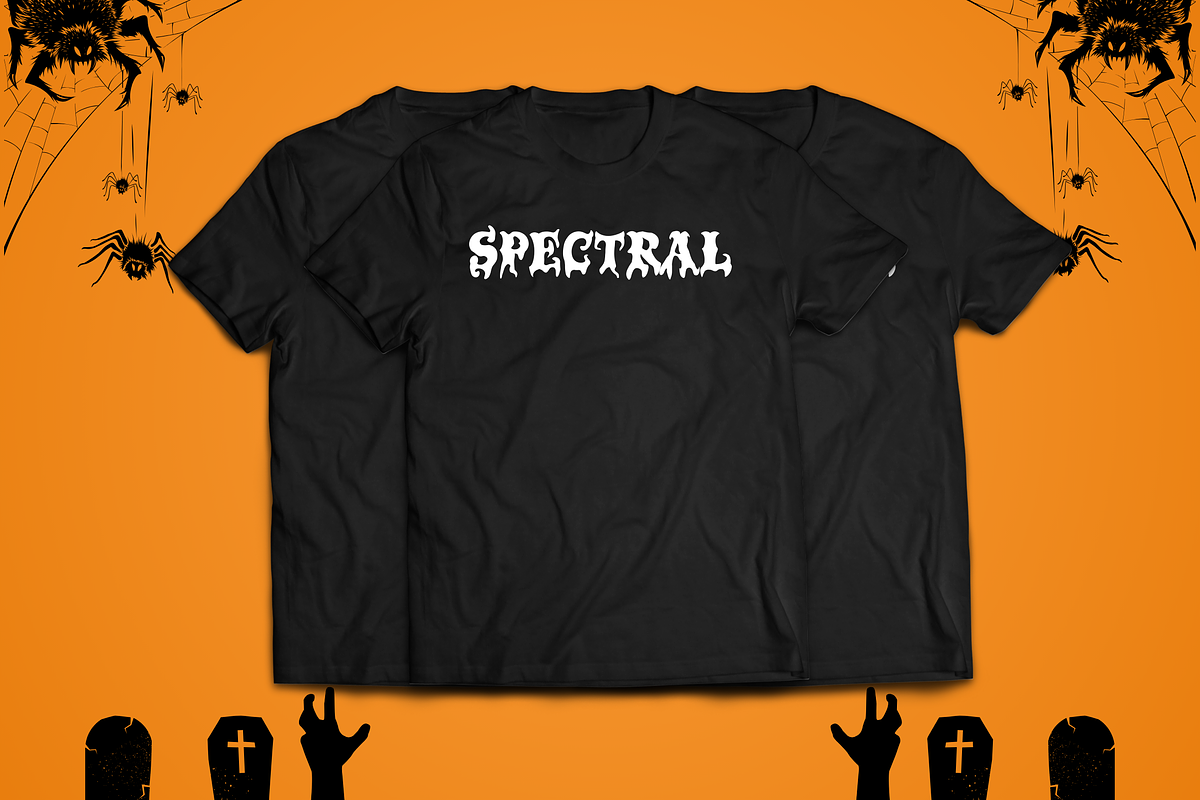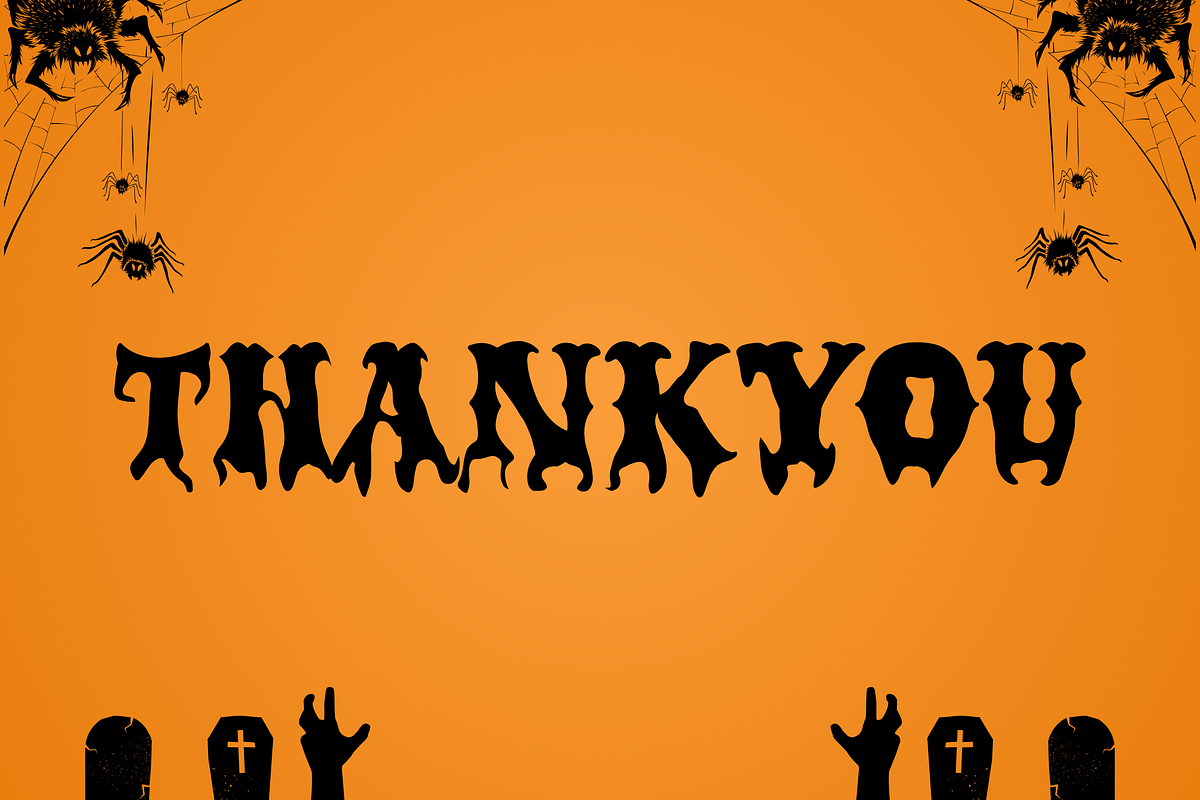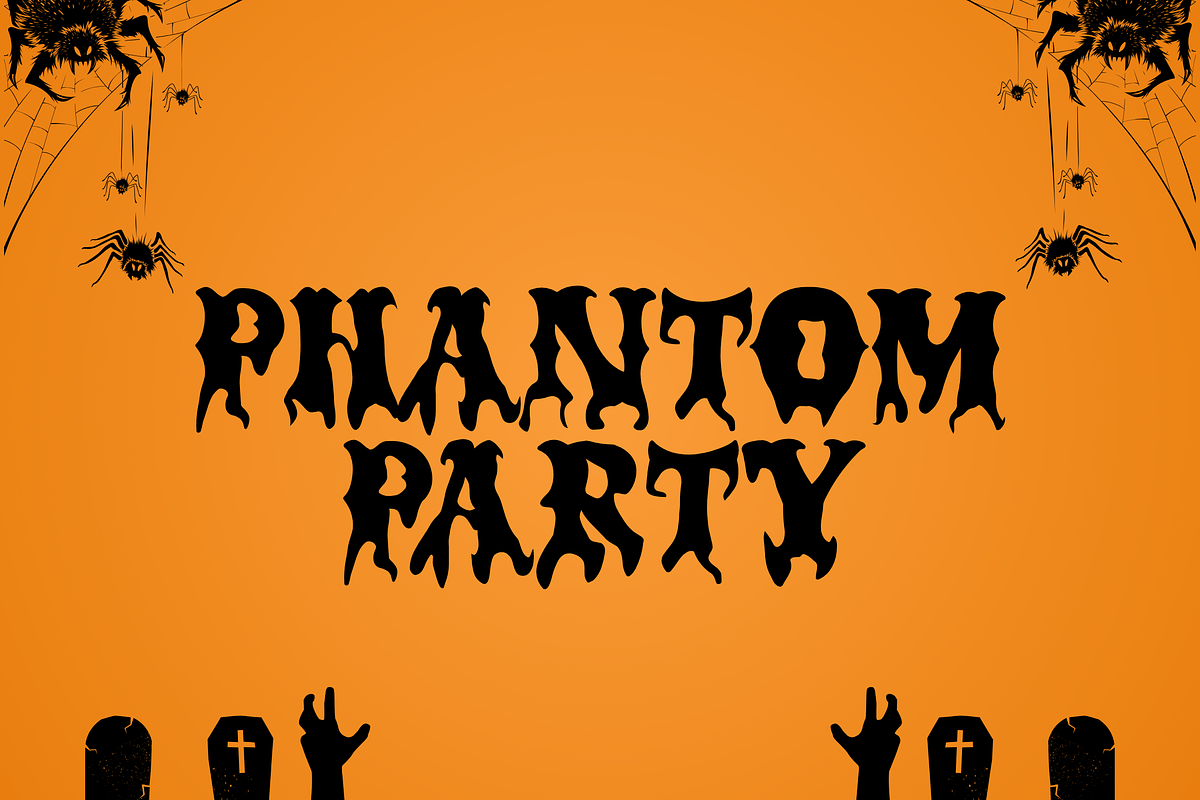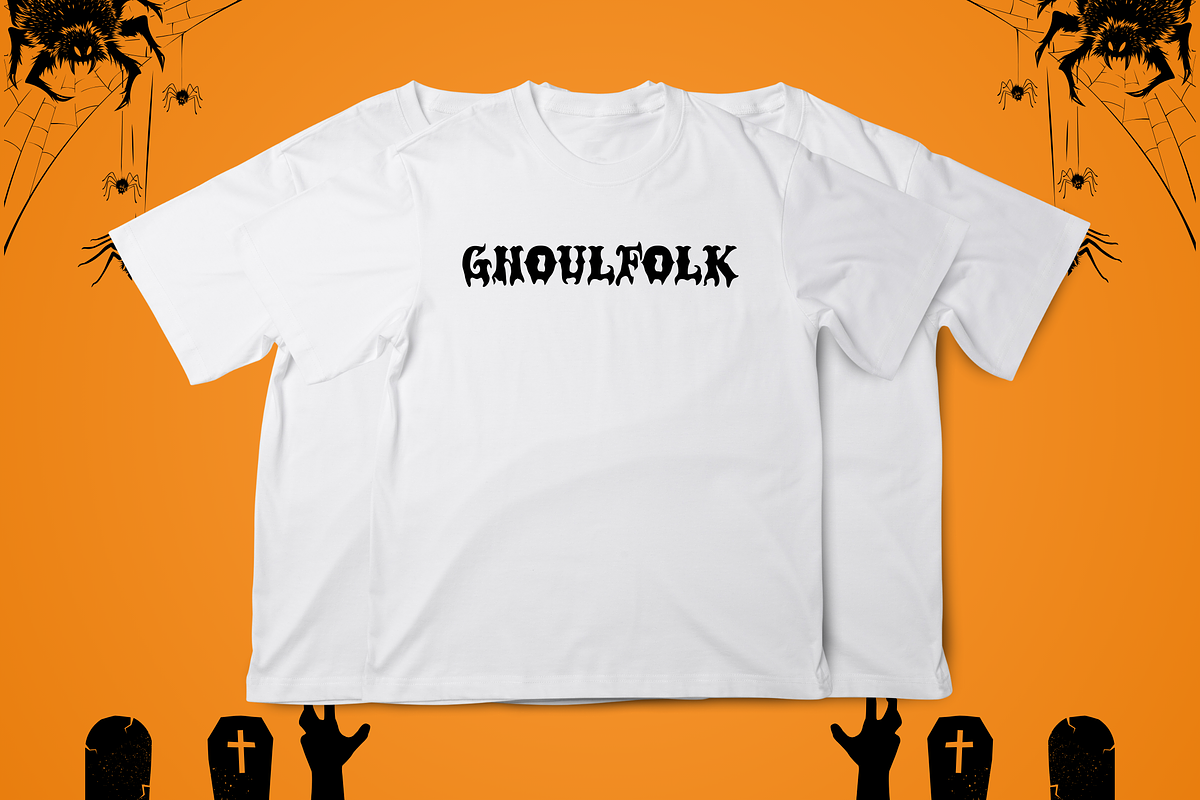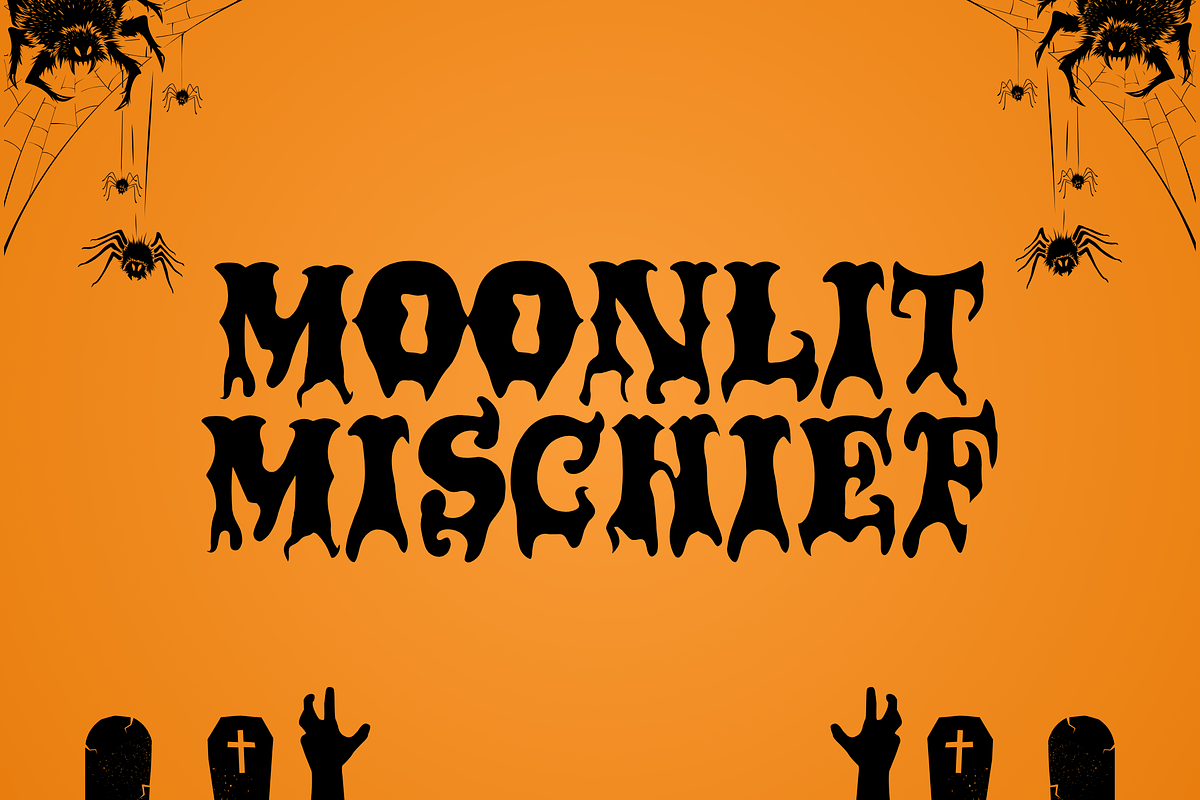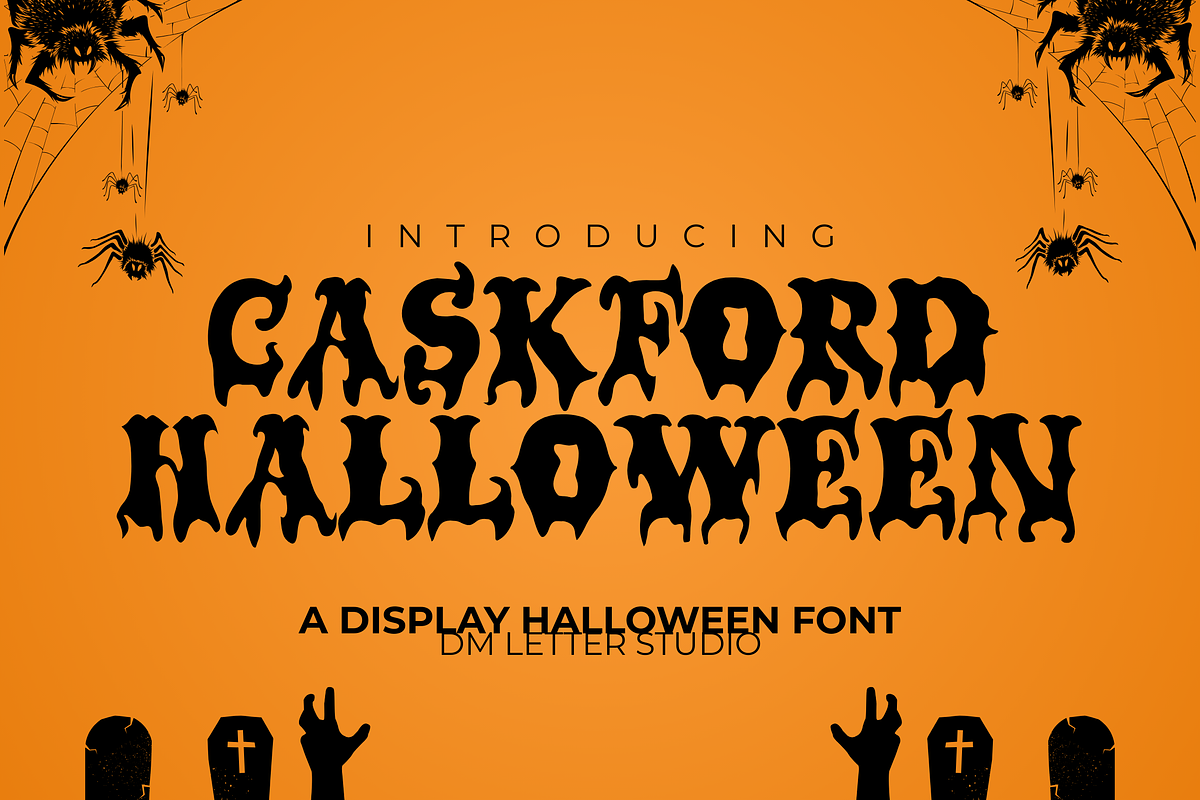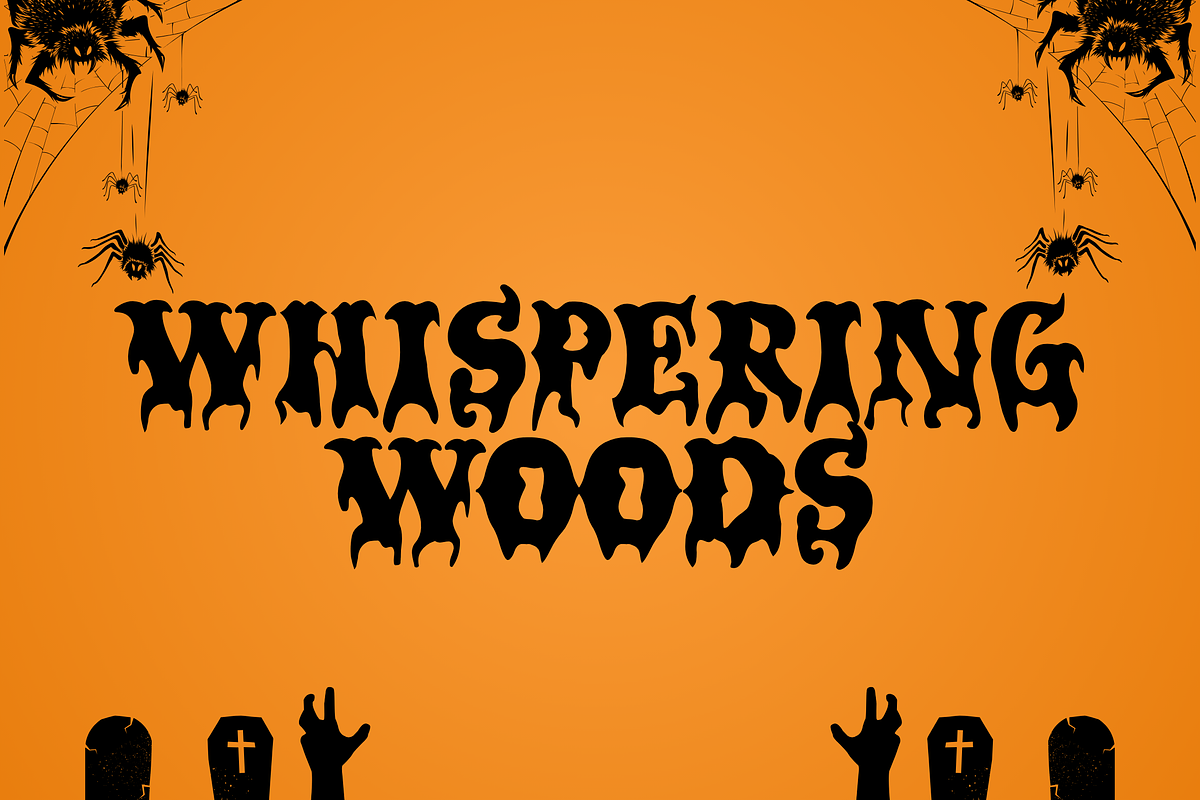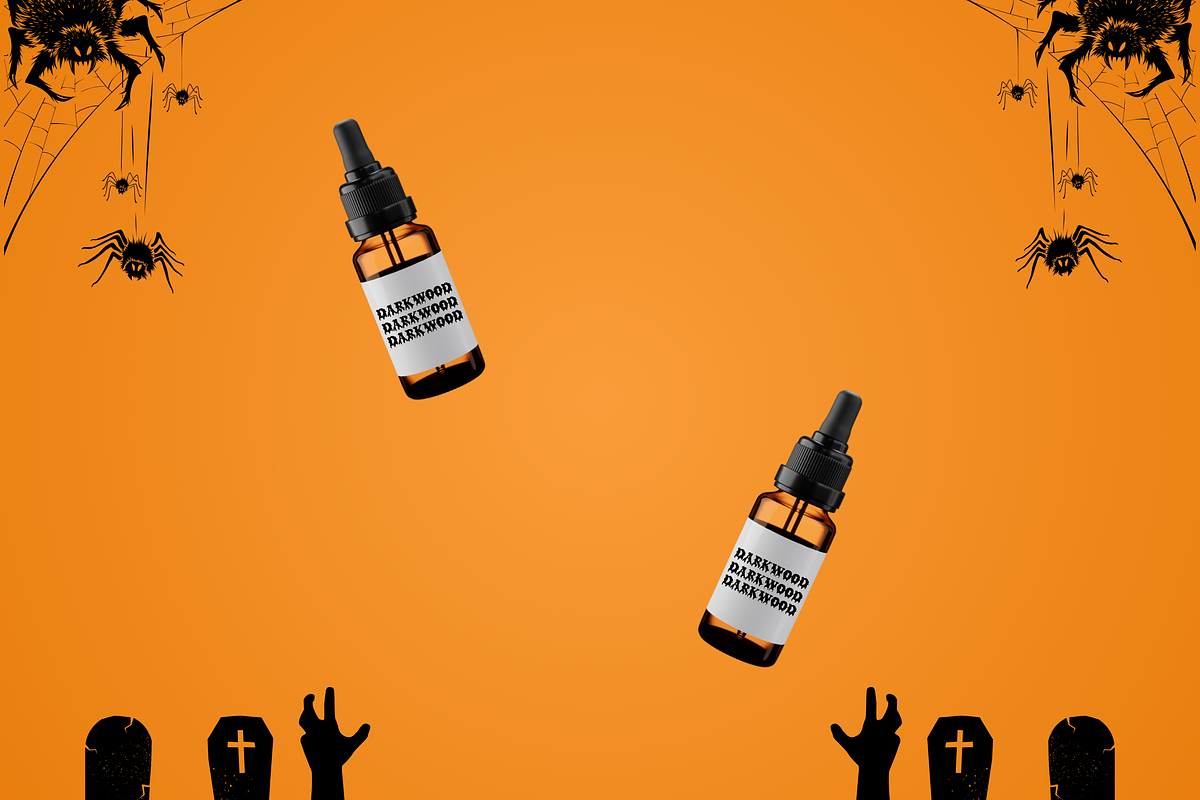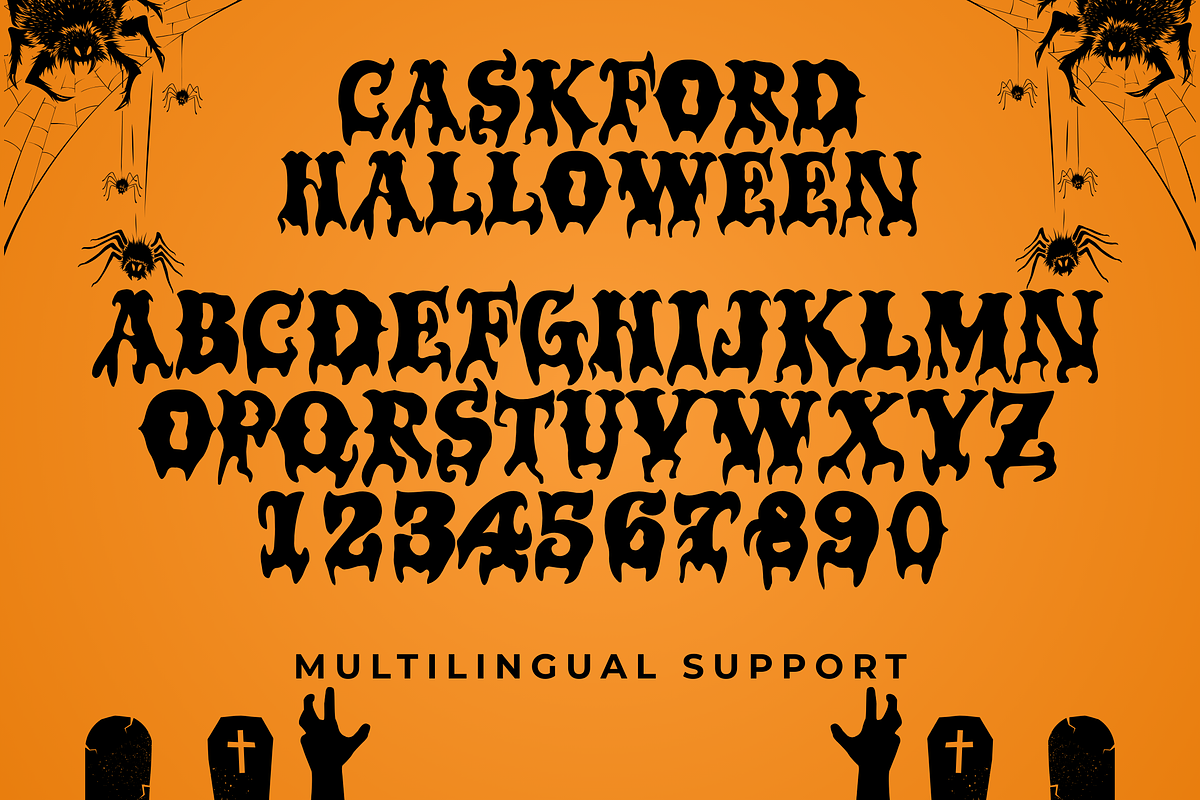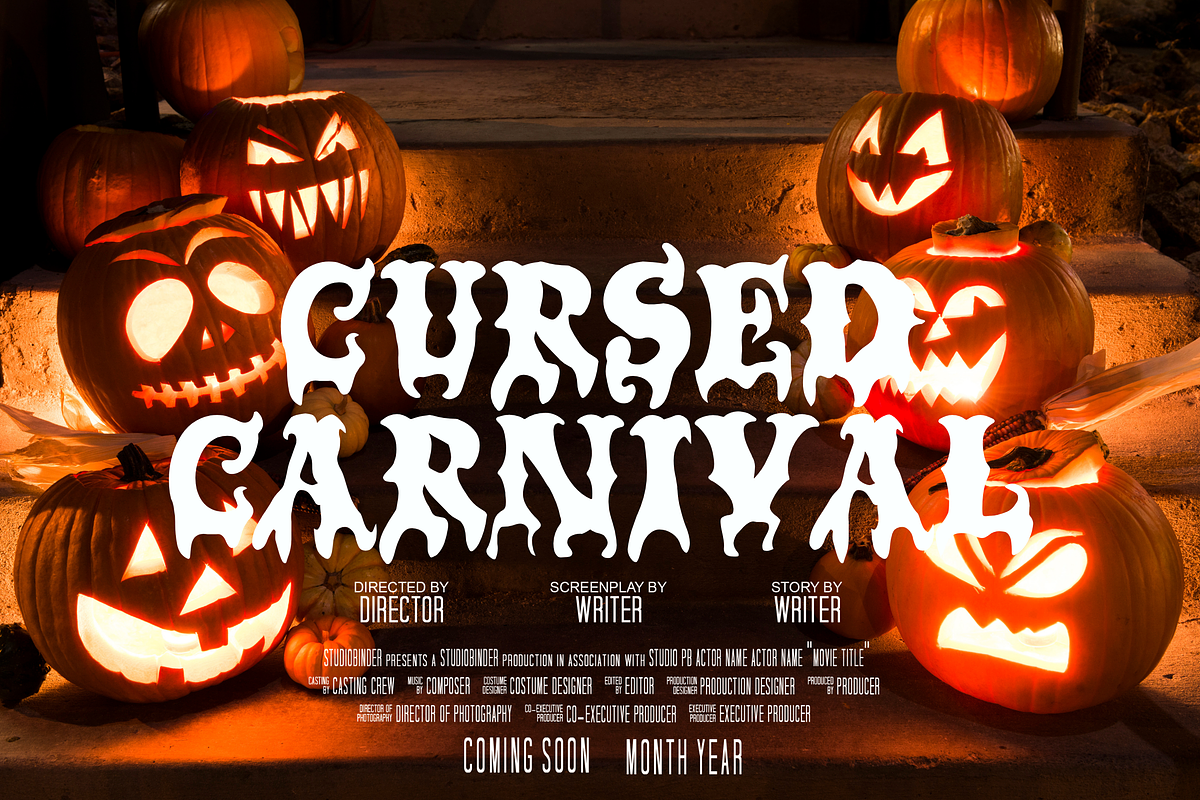
Caskford Halloween
Meet Caskford Halloween, the Western Horror Font
Caskford Halloween takes the bold, old western roots of Caskford and pushes them into darker territory. The letterforms feel rugged and vintage, with a spooky edge that’s perfect for Halloween. Shapes stay strong and readable, so the font works just as well on small labels as it does on big posters and signs. Use it for Halloween branding, spooky packaging, party posters, haunted house signage, apparel, and seasonal merch. As a result, your designs feel eerie, bold, and instantly eye-catching.
Fast layouts with the Caskford Halloween Font
Start with short, punchy words and let the font set the mood. After that, add supporting text in a clean serif or sans font for contrast. Because Caskford Halloween has a strong presence, it works great in badges, arches, and stacked layouts. In addition, it shines on warning-style labels, vintage frames, and spooky signage. Finally, try color pairs like black & orange, charcoal & bone, blood red & cream, or purple & smoke to lock in the Halloween vibe.
Creative uses and quick wins
Halloween posters, flyers, and event signage
Spooky product labels for candles, treats, and drinks
Apparel, stickers, mugs, and merch designs
Haunted house signs and party decorations
Design tips for Caskford Halloween Font